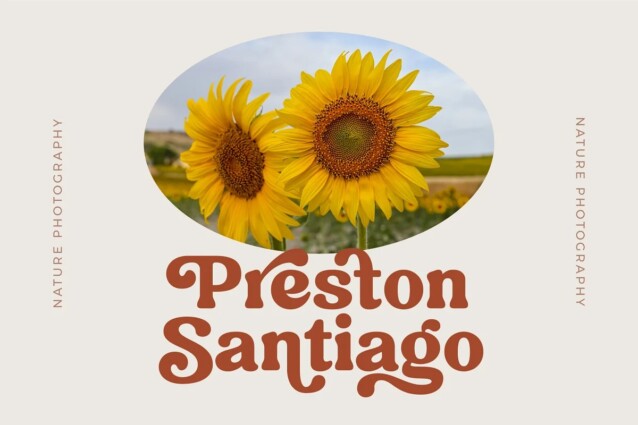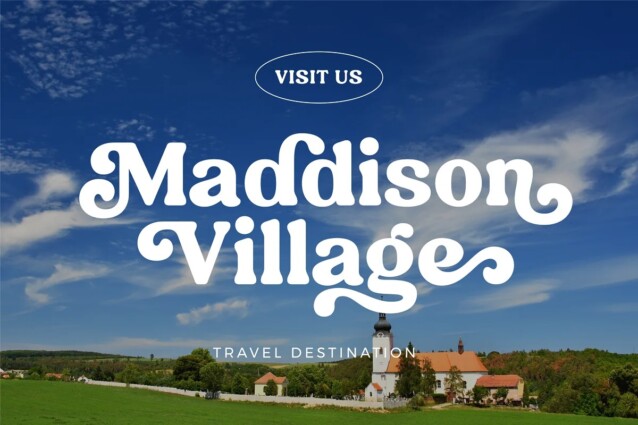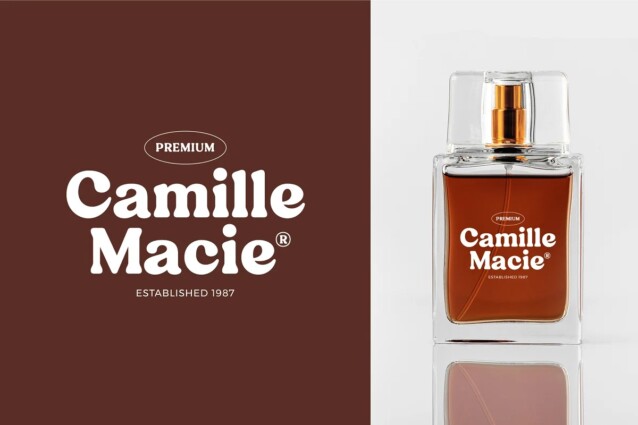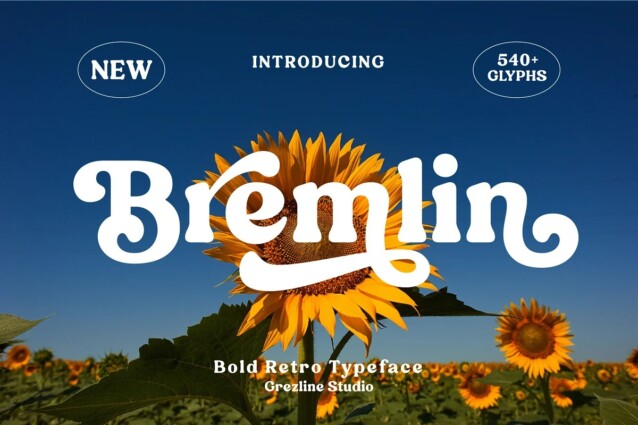
Bremlin Font is a retro display serif font from Grezline Studio that exudes a classic charm and bold character. With its design inspired by retro styles, this font brings an elegant touch and evokes a sense of the past. Bremlin font is also usable in a wide range of works such as logos, covers, posters, quotes, product packaging, merchandise, social media and much more! Use this font and let your creativity vibing!!